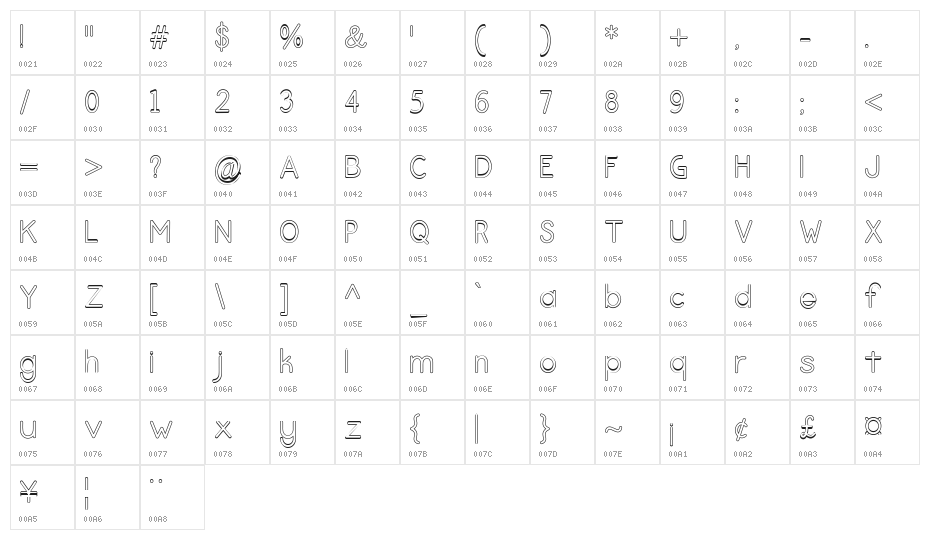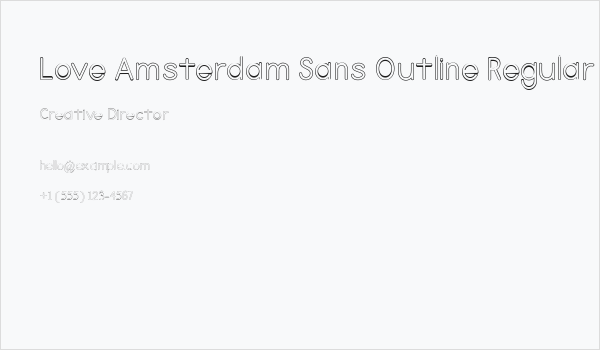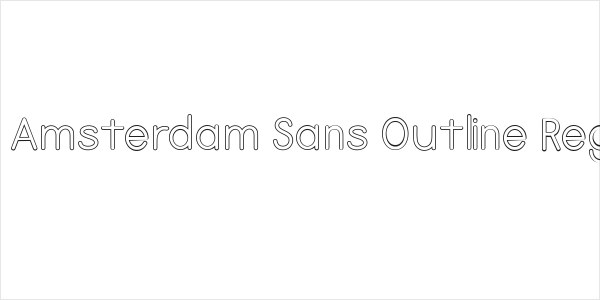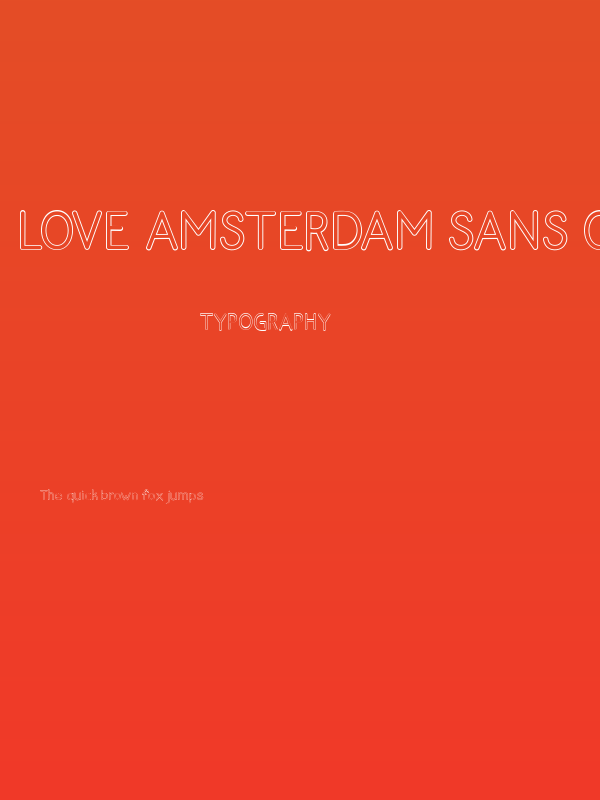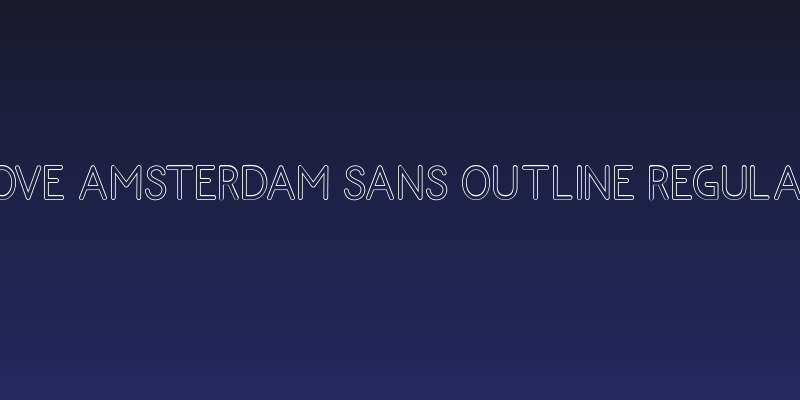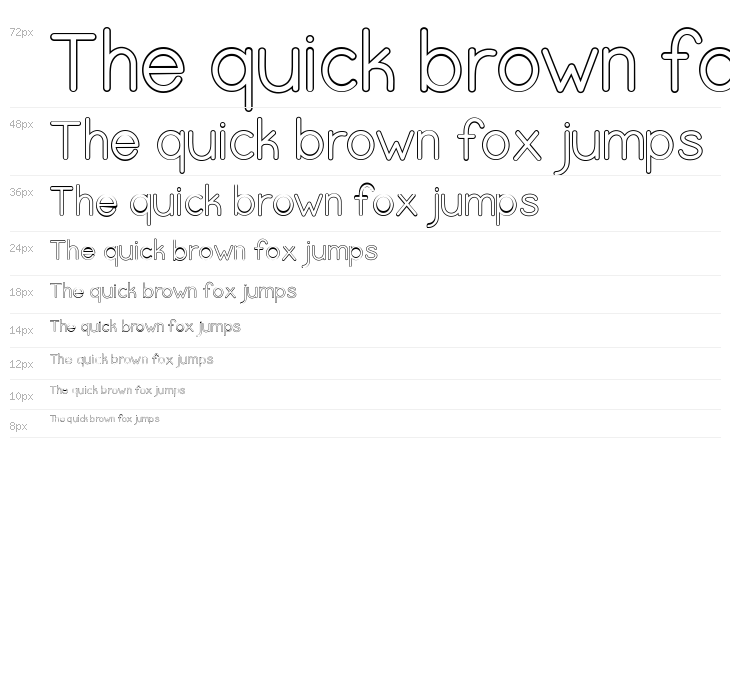
Love Amsterdam Sans Outline Regular Font
Love Amsterdam Sans Outline Regular Description
This font features a clean and modern outline style, characterized by its sans-serif structure. The letters are evenly spaced with a consistent line thickness, creating a harmonious and balanced appearance. The uppercase and lowercase letters maintain a uniform height, contributing to a cohesive look. The numerals and special characters are designed to match the overall aesthetic, ensuring versatility across various applications. The open and airy design makes it suitable for both digital and print media, offering a contemporary and stylish option for designers.